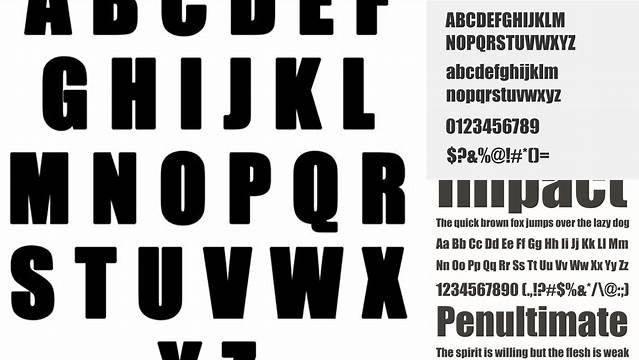
What Are Impact Fonts? Uses, History, And Alternatives
Understanding Impact Fonts
Impact fonts, guys, are like that loud friend who always makes a statement. You know, the one with the big personality? These fonts are bold, assertive, and designed to grab your attention. When you need to shout a message from the rooftopsβor, more realistically, across a poster or a memeβImpact is often the go-to choice. But what exactly makes a font an "Impact" font? It's more than just being thick and heavy; itβs about the specific design elements that contribute to its distinctive look and feel. The history of Impact fonts is pretty interesting, too. It wasn't just dreamed up overnight; it evolved from a need for fonts that could withstand the rigors of early 20th-century printing. Imagine the clunky machinery and the need for letterforms that wouldn't get lost in the shuffle. That's where the boldness comes in β it was a practical solution as much as a stylistic one. The design characteristics of an Impact font are what really set it apart. Think about the tight letter spacing, the condensed forms, and the uniform stroke weight. These elements work together to create a font that's both legible and imposing. It's not just about being big; it's about being clear and powerful. So, next time you see a headline that really pops, take a closer look. Chances are, you're looking at an Impact font in action. They've become so ingrained in our visual culture that we often don't even consciously register their presence, but their impact β pun intended β is undeniable. From the front pages of newspapers to viral internet memes, these fonts have left their mark. Understanding their history and design is key to appreciating their enduring appeal.
The History of Impact Fonts
Let's take a trip back in time, guys, to the origins of Impact fonts. The story begins in 1965, when Geoffrey Lee, a British typeface designer, created Impact for the Stephenson Blake type foundry. Now, Stephenson Blake was a big deal back in the day, known for producing metal type for printing presses. So, Lee wasn't just doodling in his spare time; he was creating a font for a very specific purpose. The goal was to design a typeface that could withstand the demands of industrial printing. Think about it: newspapers, posters, anything that needed to be bold and legible at a glance. That's where the core concept of Impact came from β a font that could literally make an impact. The context of the 1960s is super important here. This was an era of bold statements and visual communication was becoming increasingly important. Advertising was booming, and designers needed tools that could cut through the noise. Impact fit the bill perfectly. It was like the typographical equivalent of a power suit β strong, confident, and attention-grabbing. Over the years, Impact's journey has been pretty fascinating. It started as a workhorse font for print, but then something interesting happened: computers came along. And with computers came digital fonts. Impact made the leap to the digital realm, becoming a standard font in Microsoft's core fonts for the Web package. This was huge! It meant that Impact was now available on millions of computers worldwide. Suddenly, anyone could use this bold typeface, from professional designers to your average person making a flyer for the local bake sale. That's why you see Impact everywhere, from professional designs to everyday memes. Its accessibility has played a massive role in its popularity. And that's the story of how a font designed for industrial printing became a ubiquitous part of our visual landscape. Pretty cool, huh?
Design Characteristics of Impact Fonts
Alright, guys, let's dive into the nitty-gritty of what makes Impact fonts soβ¦ well, impactful! It's not just about being thick and bold; there's a whole lot of design magic going on under the hood. The key design characteristics are what give Impact its distinctive look and feel. First off, think about the overall structure. Impact is a sans-serif font, which means it doesn't have those little decorative strokes (serifs) at the ends of the letters. This gives it a clean, modern vibe, perfect for making a strong statement without any frills. The letterforms themselves are super condensed. This means they're squeezed together, which allows you to fit more text into a smaller space. It's like the typographical equivalent of packing a suitcase efficiently β you get more in without taking up extra room. This condensed nature is crucial for headlines and posters, where space is often at a premium. But here's the real secret weapon of Impact: its uniform stroke weight. What does that mean? Well, the thickness of the lines that make up each letter is pretty much the same all the way around. This creates a sense of visual consistency and power. It's like a boxer with broad shoulders and a solid stance β you know they mean business. The tight letter spacing also plays a huge role. The letters are set close together, which makes the text feel dense and compact. This adds to the overall feeling of strength and immediacy. It's like a team huddling together before a big play β there's a sense of unity and purpose. And let's not forget the x-height, which is the height of the lowercase letters. Impact has a relatively high x-height, which makes the text more legible, especially at smaller sizes. It's all about clarity, guys. Impact isn't just about being bold; it's about being readable too. So, when you put all these elements together β the sans-serif design, the condensed letterforms, the uniform stroke weight, the tight letter spacing, and the high x-height β you get a font that's designed to grab attention. It's a carefully crafted tool for making a visual impact. Now you know the secrets!
Common Uses of Impact Fonts
Impact fonts are like the Swiss Army knives of the design world β super versatile and useful in a ton of different situations. You see them everywhere, guys, from the serious stuff like headlines and posters to the more lighthearted world of memes and social media. Let's break down some of the most common applications. In the world of headlines and advertising, Impact is a total rock star. Think about it: you need to grab someone's attention in a split second, whether it's on a billboard, a magazine cover, or a website banner. Impact's bold, assertive nature makes it perfect for this. It's like the typographical equivalent of shouting from the rooftops β impossible to ignore. Posters and signage are another area where Impact shines. Whether it's a concert poster, a promotional sign, or even a protest placard, Impact's legibility and impact (again, pun intended!) make it a great choice. You want people to be able to read your message from a distance, and Impact delivers. But Impact's versatility doesn't stop there. It's also a major player in the digital world, especially when it comes to memes and social media graphics. Why? Because it's instantly recognizable and easy to read, even in the tiny thumbnail previews that dominate our social feeds. Memes, of course, are where Impact has really cemented its place in internet culture. Those bold white letters with the black outline? That's classic Impact. It's become so closely associated with memes that it's almost a visual shorthand for humor and shareable content. But, guys, let's not forget the importance of context. Impact is a powerful tool, but it's not always the right choice. Using it too much, or in the wrong context, can be like using a megaphone in a library β it's just not appropriate. So, while Impact is great for grabbing attention, it's important to use it thoughtfully and strategically. Know your audience, know your message, and choose your font accordingly. When used well, Impact can be a total game-changer. But like any powerful tool, it's best to wield it with care.
Headlines and Advertising
When it comes to headlines and advertising, Impact fonts are like the headline act at a rock concert β they're there to make a splash and leave a lasting impression. Think about it, guys: in the fast-paced world of advertising, you've got mere seconds to grab someone's attention. That's where Impact comes in, strutting its stuff with its bold, assertive letterforms. It's like the typographical equivalent of a power pose β confident, commanding, and impossible to ignore. Headlines need to do a lot of heavy lifting. They need to summarize the story, pique the reader's interest, and make them want to dive in for more. Impact is brilliant at this because it's so darn readable. Its clean, sans-serif design and uniform stroke weight mean that your message comes across loud and clear, even at a glance. Advertising, of course, is all about making a statement. You're trying to convince people to buy something, try something, or believe something. And the font you use plays a massive role in this. Impact's boldness conveys a sense of strength and confidence, which can be super effective in getting your message across. It's like saying, βHey, look at this! It's important, and you need to know about it!β Think about all the places you see headlines and ads: billboards, magazine covers, websites, social mediaβ¦ the list goes on. And in all these contexts, Impact is a familiar face. It's like that friend who always shows up at the party β you know you can count on it to bring the energy. But here's the thing, guys: just because Impact is a powerhouse doesn't mean it's a one-size-fits-all solution. You need to think about your brand, your message, and your target audience. If you're selling something delicate and understated, Impact might not be the right choice. It's more suited to bold, impactful messages that need to cut through the noise. So, when you're crafting a headline or an ad, consider Impact as one of your go-to tools. It's a classic for a reason, and when used strategically, it can be a total game-changer. But remember, font choice is like choosing the right outfit β it needs to fit the occasion.
Posters and Signage
Let's talk posters and signage, guys, because this is another area where Impact fonts really shine. Think about it: posters and signs are all about communicating quickly and effectively, often from a distance. You need a font that's not just readable, but also grabs attention and sticks in people's minds. That's where Impact comes in, flexing its bold muscles and making sure your message gets seen. Whether it's a concert poster, a promotional sign for a store, or even a protest placard, Impact's legibility is a major asset. Its clean, sans-serif design and uniform stroke weight mean that your message is clear and easy to read, even from afar. This is crucial because people often only have a few seconds to take in the information on a poster or sign. So, you need to make those seconds count. But it's not just about legibility; it's also about impact (yes, another pun!). A poster or sign needs to stand out from its surroundings, whether it's competing with other posters, storefronts, or even just the general visual clutter of the urban environment. Impact's boldness helps it to do just that. It's like the typographical equivalent of raising your voice β it cuts through the noise and demands attention. Think about the different types of posters and signs out there. Concert posters often need to convey a sense of energy and excitement, and Impact is perfect for that. Promotional signs need to grab shoppers' attention and entice them to come inside, and Impact's bold presence can help. Even protest placards benefit from Impact's strength and clarity, ensuring that the message is seen and understood. But here's the thing, guys: even with posters and signs, context matters. You need to think about the overall design, the color scheme, and the target audience. Impact might not be the right choice for every situation. For example, if you're creating a poster for a high-end art exhibition, a more refined and elegant font might be a better fit. But for situations where you need to make a bold statement and ensure maximum readability, Impact is a reliable and effective choice. It's like the workhorse of the poster and signage world β always ready to get the job done.
Memes and Social Media Graphics
Ah, memes! Guys, we can't talk about Impact fonts without diving into the wonderful world of internet culture. Because let's be real, Impact has become synonymous with memes. Those bold white letters with the black outline? That's Impact in its natural habitat. It's like the official font of the internet, and its reign shows no signs of slowing down. But why is Impact so perfect for memes? Well, it's a combination of factors. First off, there's its inherent boldness. Memes are all about grabbing attention and making a point quickly, and Impact's assertive nature fits the bill perfectly. It's like the typographical equivalent of a perfectly timed punchline β it lands with force and gets the message across. Then there's the legibility factor. Memes are often viewed on small screens, on the go, and in crowded social media feeds. You need a font that's easy to read at a glance, and Impact's clean, sans-serif design and uniform stroke weight ensure that your meme's text is clear and legible. It's like the typographical equivalent of speaking loudly and clearly β you want to make sure everyone gets the joke. But perhaps the most important factor is Impact's ubiquity. Because it's been used in so many memes over the years, it's become instantly recognizable as the βmeme font.β This creates a kind of visual shorthand. When people see Impact, they immediately think βmeme,β which can help your content get noticed and shared. It's like using a familiar catchphrase β it instantly connects with your audience. Of course, Impact's influence extends beyond memes. It's also a popular choice for social media graphics in general. Whether you're creating a promotional image for your business, a motivational quote graphic, or just a fun update for your friends, Impact can help you make a bold statement and grab attention. But here's the thing, guys: while Impact is a meme icon, it's not the only font out there. There are plenty of other great fonts that can work well in memes and social media graphics. So, don't be afraid to experiment and try new things. But if you're looking for a classic, reliable choice that's guaranteed to make an impact, well, you know what to do. Just remember, with great fonts comes great responsibility. Use your powers for good (and for hilarious memes!).
Alternatives to Impact Fonts
Okay, guys, let's talk about shaking things up a bit. Impact fonts are awesome and all, but sometimes you need to explore other options. There's a whole universe of fonts out there, and it's worth knowing some alternatives that can give you a similar vibe without being quite soβ¦ well, ubiquitous. Think of it like this: Impact is the classic black t-shirt, always reliable, but sometimes you want to rock a different look. So, what are some fonts that capture the essence of Impact β that bold, assertive, attention-grabbing feel β while offering something a little different? First up, let's talk about Bebas Neue. This is a sans-serif font that's super popular for headlines and posters. It's tall, condensed, and has a similar vibe to Impact, but with a slightly more modern and streamlined feel. It's like Impact's cooler, younger cousin. Then there's Montserrat, another fantastic sans-serif option. Montserrat is a bit more versatile than Impact, with a wider range of weights and styles. It's still bold and legible, but it has a slightly more sophisticated and contemporary look. It's like Impact's more worldly and well-traveled friend. Another great choice is Open Sans. This is a super popular font for web design because it's incredibly readable on screens. It's a bit more neutral than Impact, but it can still pack a punch when used in bold weights. It's like Impact's dependable and versatile colleague. And let's not forget about Futura. This is a classic geometric sans-serif font that's been around for decades, and it still looks fresh and modern. It's bold, clean, and has a distinctive, almost futuristic feel. It's like Impact's sophisticated and stylish uncle. But here's the key thing, guys: when choosing an alternative to Impact, think about the overall tone and message you're trying to convey. What are you trying to say? What kind of feeling do you want to evoke? The right font can make all the difference. So, while Impact is a fantastic font, don't be afraid to branch out and explore. There's a whole world of typographical possibilities waiting to be discovered. It's like trying new foods β you might just find your new favorite flavor!
Bebas Neue
Alright, guys, let's zoom in on one of the top contenders in the Impact font alternative arena: Bebas Neue. This font has become a real favorite among designers for its clean lines, modern feel, and, yeah, its ability to pack a punch like Impact. If Impact is the bold, shouting headline, Bebas Neue is the confident, well-spoken statement. Think of it as Impact's slightly more refined cousin. Bebas Neue is a sans-serif font, which means it doesn't have those little decorative strokes (serifs) at the ends of the letters. This gives it a clean, contemporary look that's perfect for headlines, posters, and other situations where you need to make a strong impression. But what really sets Bebas Neue apart is its tall, condensed letterforms. This means the letters are squeezed together, which allows you to fit more text into a smaller space. It's a similar effect to Impact, but Bebas Neue has a slightly more streamlined and elegant feel. It's like Impact slimmed down and hit the gym β still strong, but with a bit more finesse. One of the great things about Bebas Neue is its versatility. It works well in a variety of designs, from bold, attention-grabbing headlines to more subtle and understated text. It's like the chameleon of the font world β it can adapt to different situations and still look great. But perhaps the biggest reason why Bebas Neue is so popular is its accessibility. It's an open-source font, which means it's free to use for both personal and commercial projects. This makes it a fantastic option for designers on a budget, as well as anyone who wants to experiment with different fonts without breaking the bank. It's like the people's font β available to everyone. So, if you're looking for an alternative to Impact that's bold, modern, and versatile, Bebas Neue is definitely worth checking out. It's like adding a new tool to your design toolkit β you never know when it might come in handy. Just remember, font choice is like choosing the right shoes for an outfit β it needs to complement the overall look and feel.
Montserrat
Let's shine a spotlight on another fantastic alternative to Impact fonts, guys: Montserrat. This font is like that friend who's both stylish and dependable β it's got a great look, but it also gets the job done. If Impact is the bold declaration, Montserrat is the confident conversation. It's a sans-serif font that's known for its clean lines, balanced letterforms, and overall versatility. Montserrat is part of a larger trend in typography towards more geometric sans-serif fonts. These fonts are inspired by the early 20th-century modernist movement, which emphasized simplicity, functionality, and clean design. It's like bringing a touch of art deco elegance to your designs. One of the things that makes Montserrat so versatile is its wide range of weights and styles. You can use it for everything from headlines to body text, and it always looks great. It's like the Swiss Army knife of fonts β it can handle just about any task you throw at it. But what really sets Montserrat apart is its personality. While it's clean and modern, it also has a certain warmth and approachability. It's not as aggressively bold as Impact, but it still commands attention. It's like speaking with a calm, confident voice β you don't have to shout to be heard. Montserrat is also a great choice for web design. Its clean lines and balanced letterforms make it highly readable on screens, even at smaller sizes. This is crucial for websites and other digital applications, where readability is paramount. It's like having a font that's designed to be seen and understood. And like Bebas Neue, Montserrat is an open-source font, which means it's free to use for both personal and commercial projects. This makes it a fantastic option for designers of all levels. It's like a gift to the design community. So, if you're looking for an alternative to Impact that's stylish, versatile, and highly readable, Montserrat is definitely worth considering. It's like adding a touch of modern elegance to your designs. Just remember, font choice is like choosing the right music for a party β it needs to set the right mood.
So, guys, we've taken a deep dive into the world of Impact fonts, exploring their history, design characteristics, common uses, and even some fantastic alternatives. We've seen how Impact has become a go-to choice for headlines, posters, memes, and more, thanks to its bold, assertive nature and undeniable legibility. But we've also learned that there's a whole universe of fonts out there, and it's worth exploring your options to find the perfect fit for your project. Think of Impact as a classic tool in your design arsenal β reliable, effective, and always ready to make a statement. It's like that trusty hammer in your toolbox β you know it'll get the job done. But sometimes you need a different tool for a different task. That's where alternatives like Bebas Neue and Montserrat come in. These fonts offer a similar level of boldness and impact, but with their own unique personalities and styles. It's like having a variety of brushes in your art kit β each one can create a different effect. Ultimately, the key to choosing the right font is to think about your message, your audience, and the overall tone and feel you're trying to create. Font choice is like choosing the right words to say β it can make all the difference in how your message is received. So, don't be afraid to experiment, try new things, and find the fonts that speak to you. And remember, even though Impact is a classic, it's just one font in a vast and exciting world of typography. Go out there and explore! It's like embarking on a design adventure β you never know what treasures you might discover. Happy designing, guys!